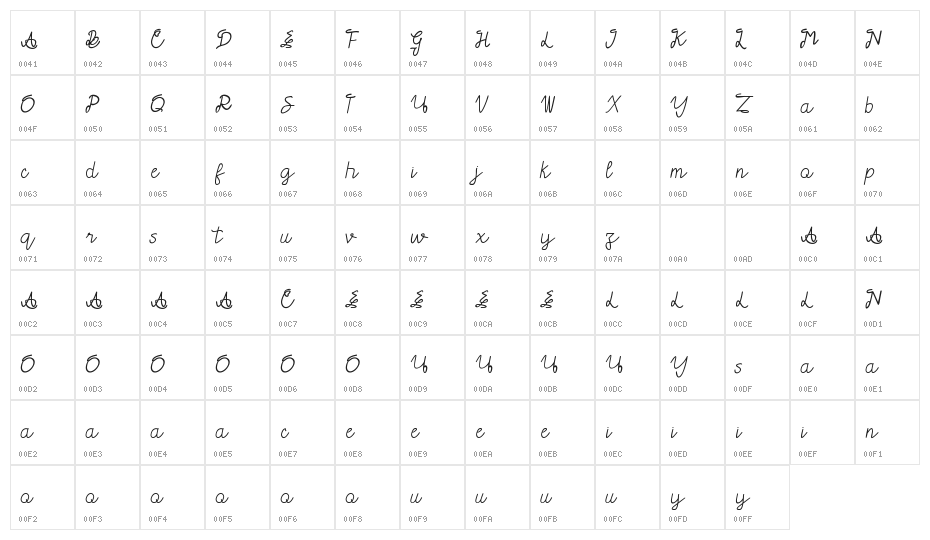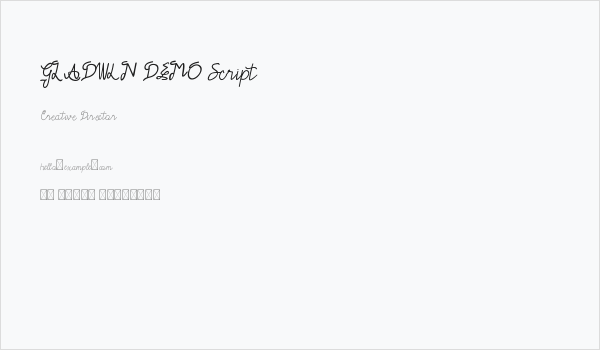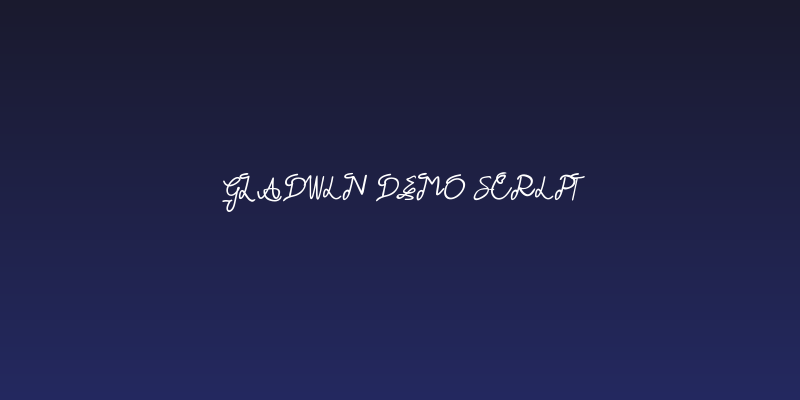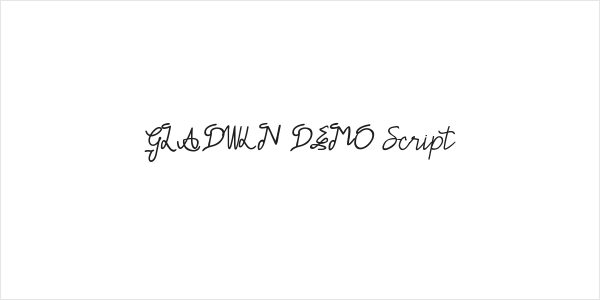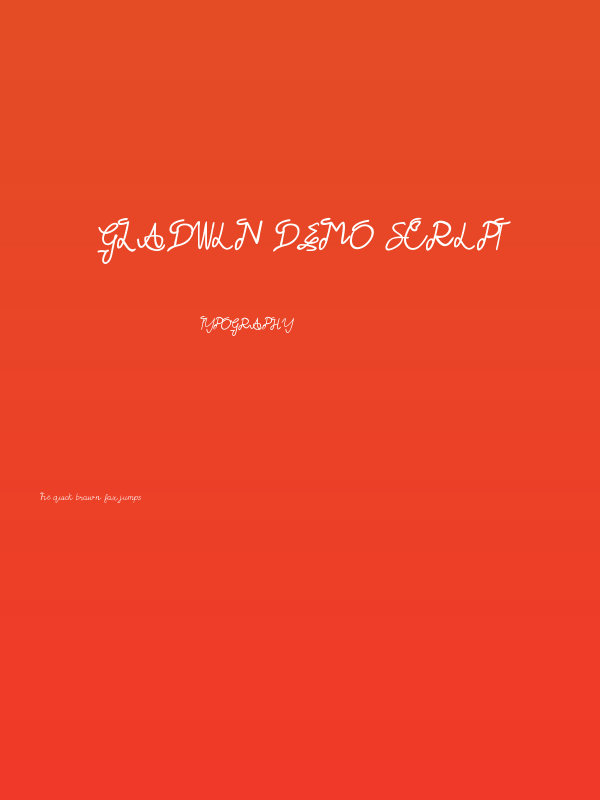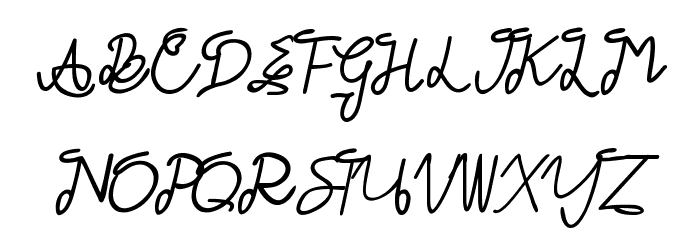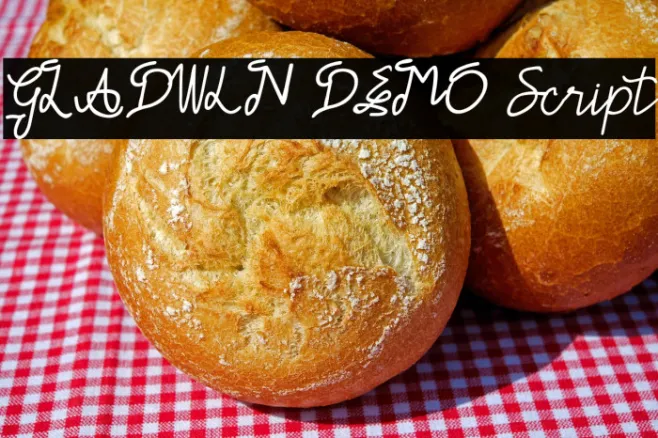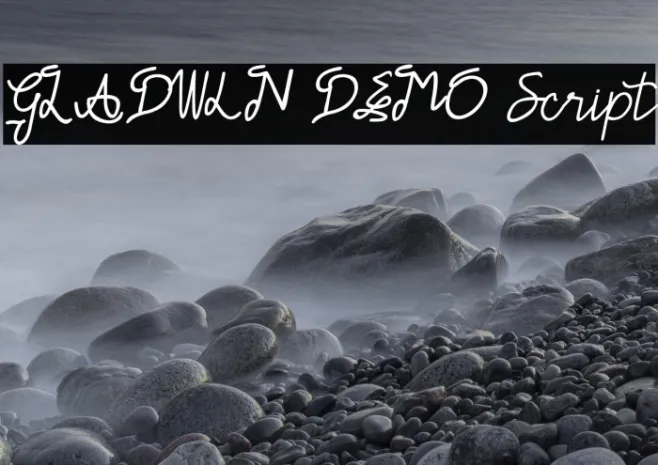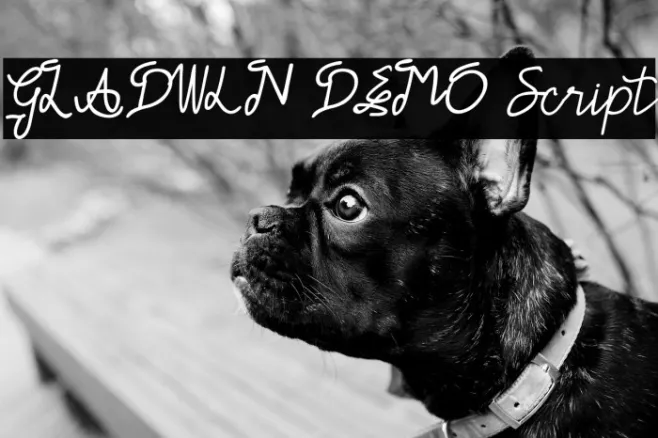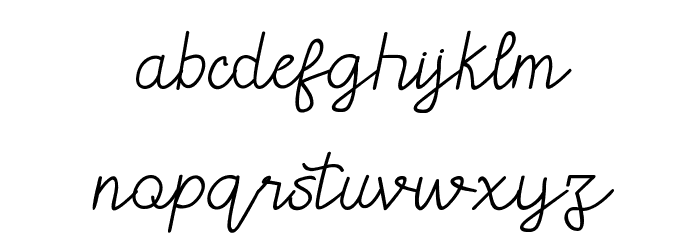
GLADWIN DEMO Script Font
GLADWIN DEMO Script Description
This elegant script font features a fluid and graceful design, characterized by its flowing, interconnected letters that mimic the natural movement of handwriting. The uppercase letters are bold and prominent, with distinctive loops and curves that add a touch of sophistication. The lowercase letters maintain a consistent style, offering a seamless transition between characters. This font exudes a sense of elegance and charm, making it ideal for projects that require a personal touch. The overall design is both classic and modern, suitable for a variety of creative applications.
| Overall Style | Elegant, Classic |
| Proposed Projects | Ideal for wedding invitations, greeting cards, personal branding, and elegant logo designs. |